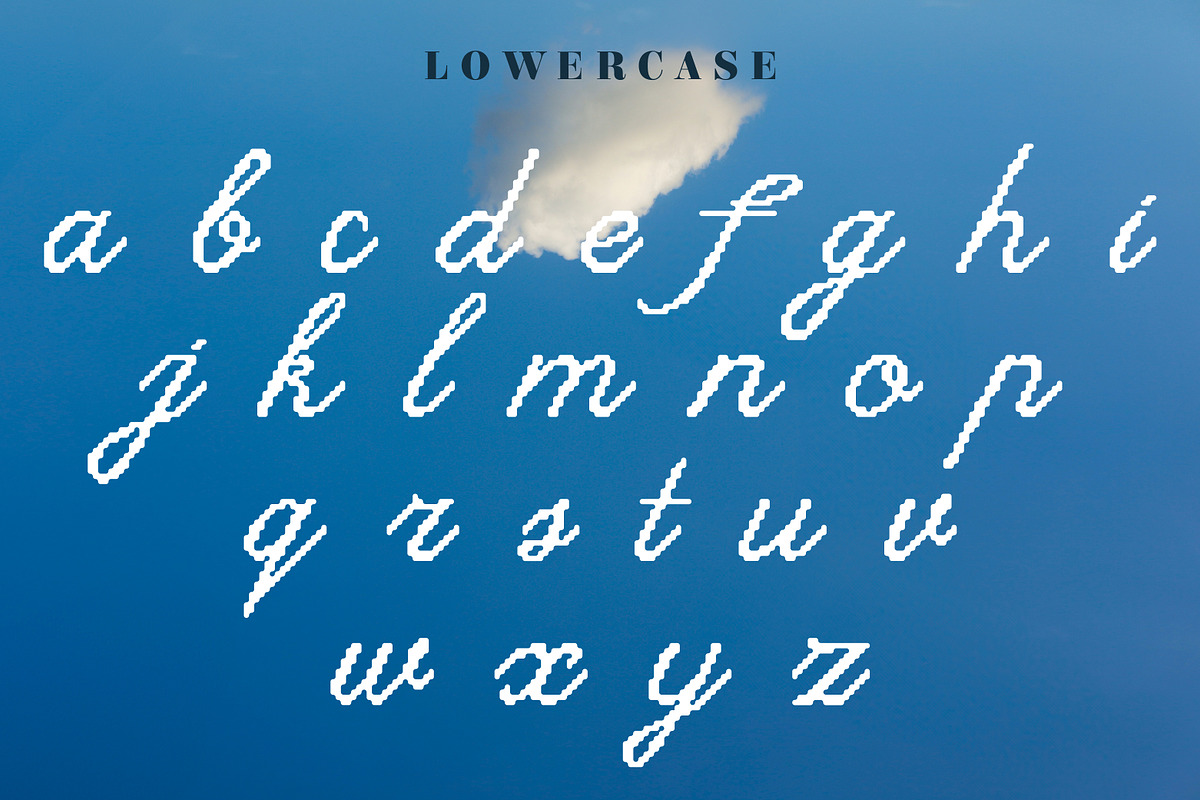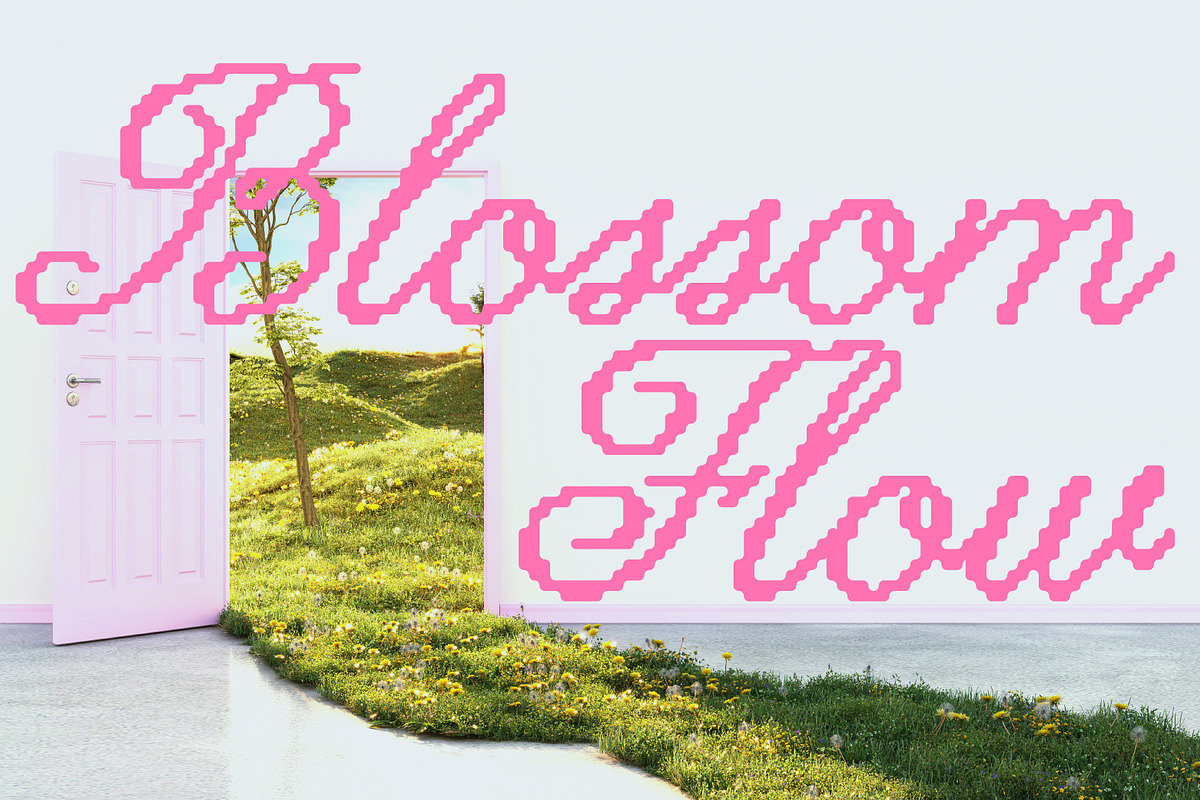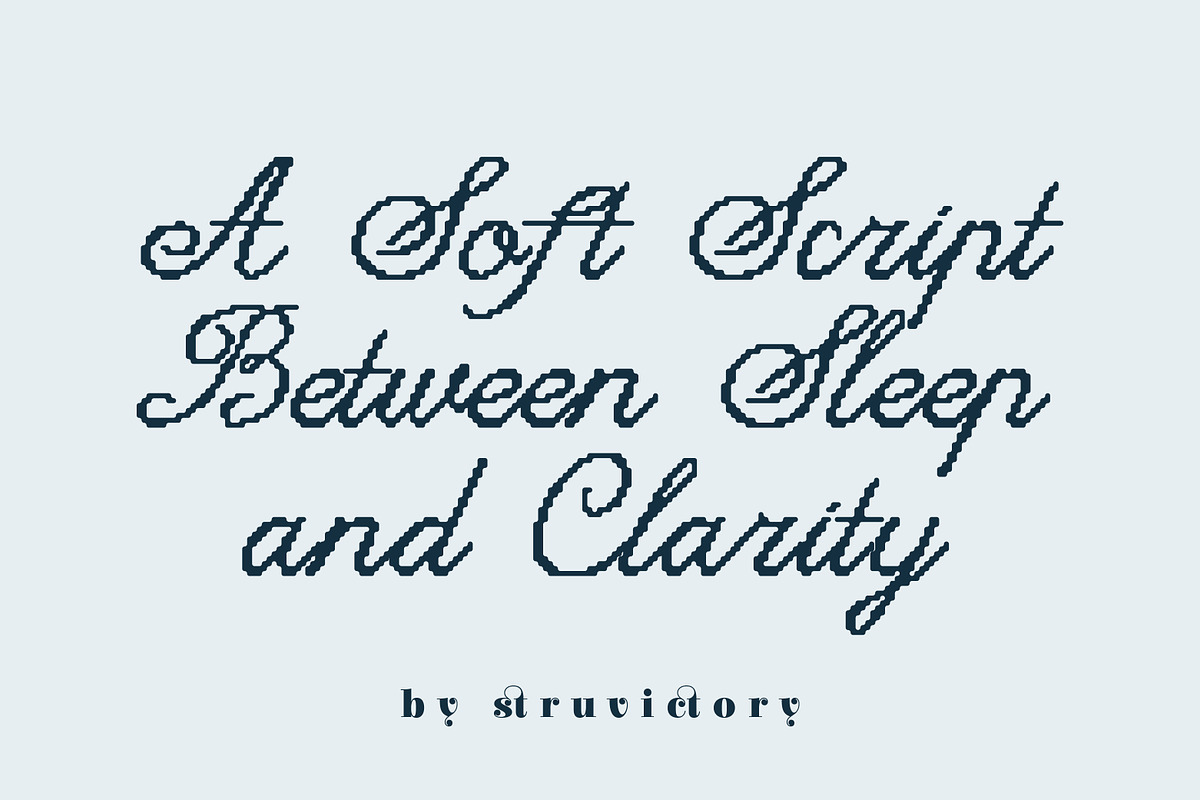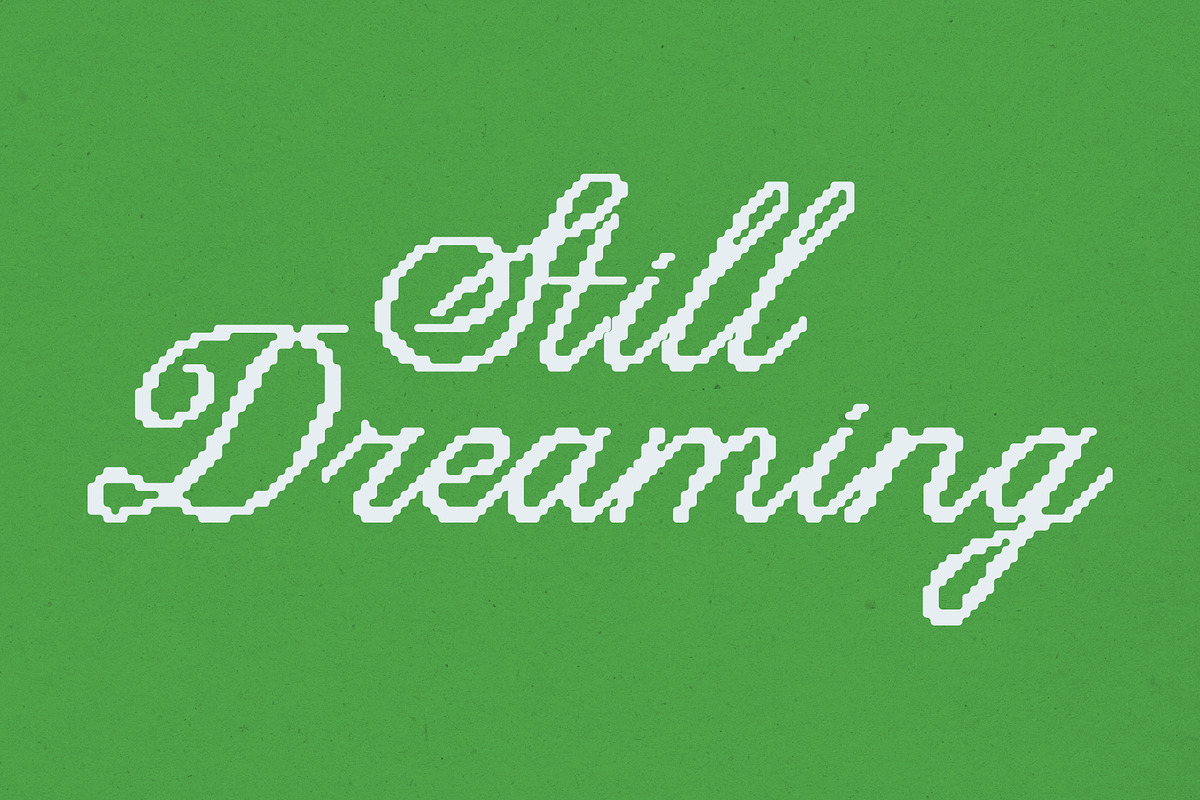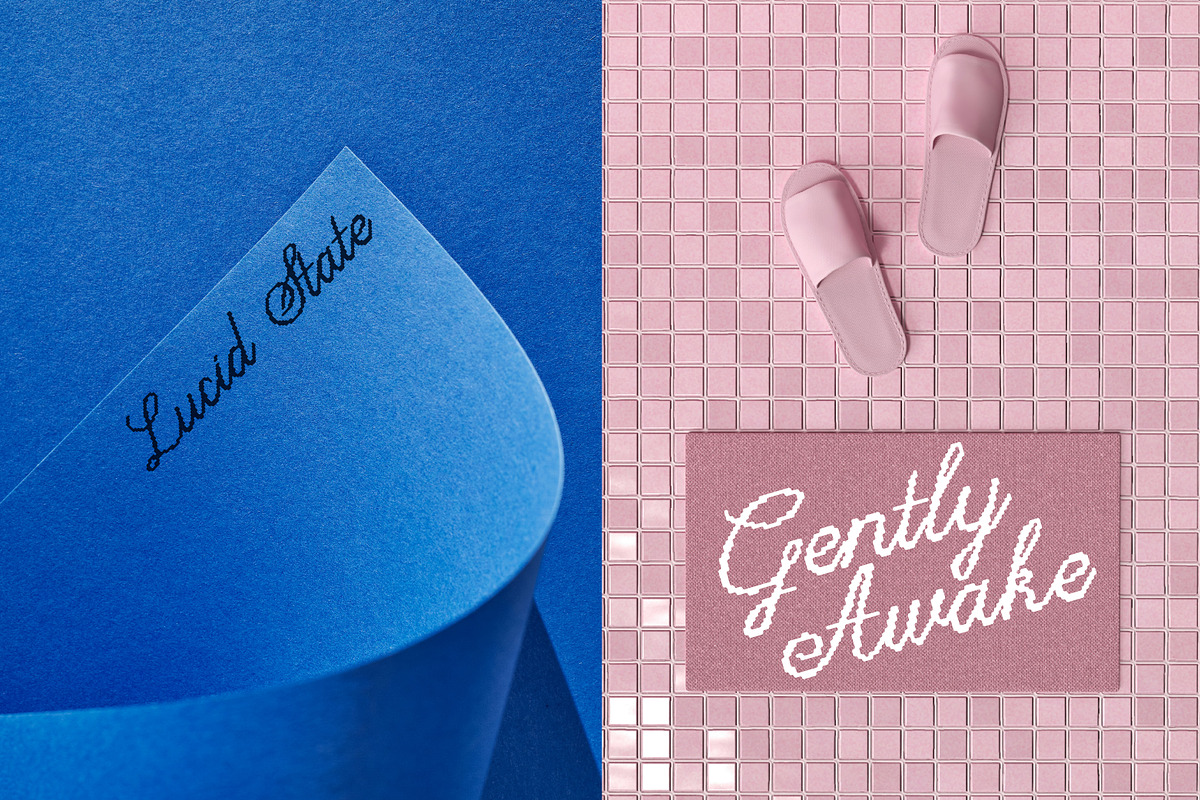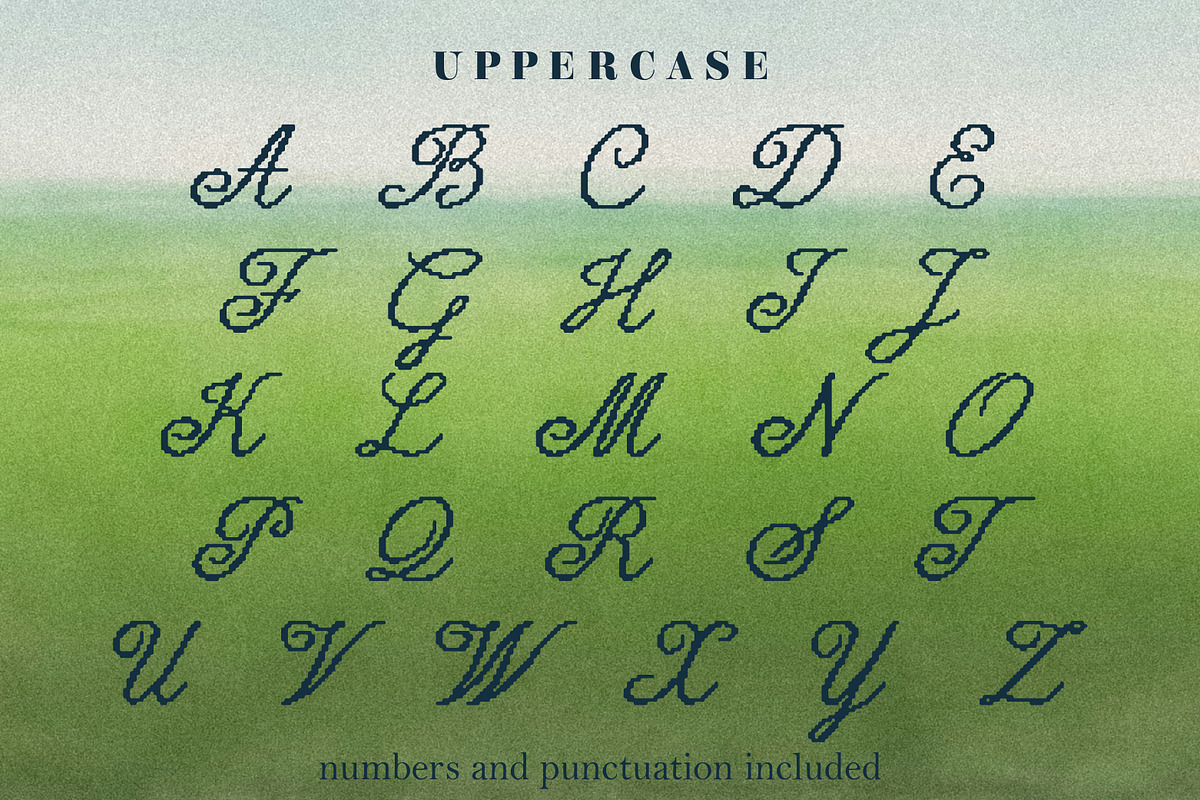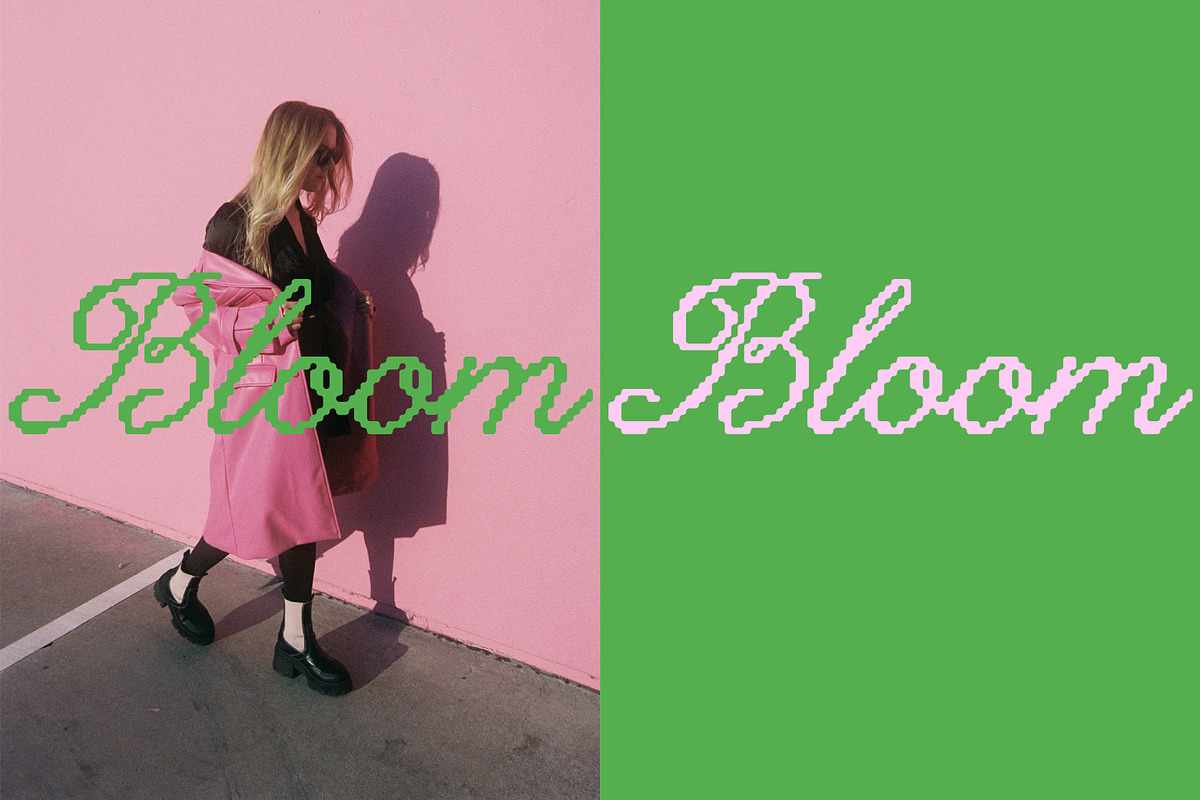
Lucid Wake Pixel Calligraphic Script
Lucid Wake is a soft, pixel-inspired handwritten script that lives between dreaming and clarity. It combines an airy, calm rhythm with clean letter shapes, creating a gentle surreal mood without losing readability. The font feels light, optimistic, and intentional, like a good dream you remember after waking up. Lucid Wake works beautifully for branding, covers, posters, editorials, packaging, and poetic layouts where emotion matters as much as clarity. Designed to feel dreamy, but stay clear.